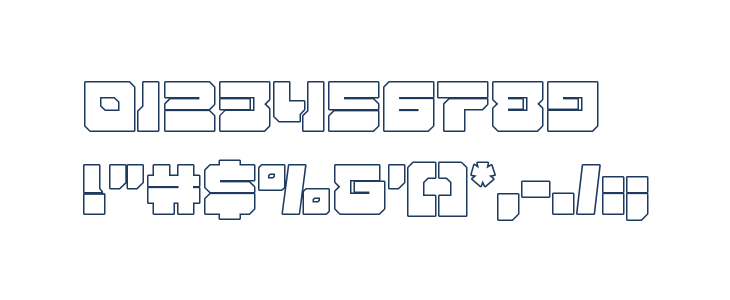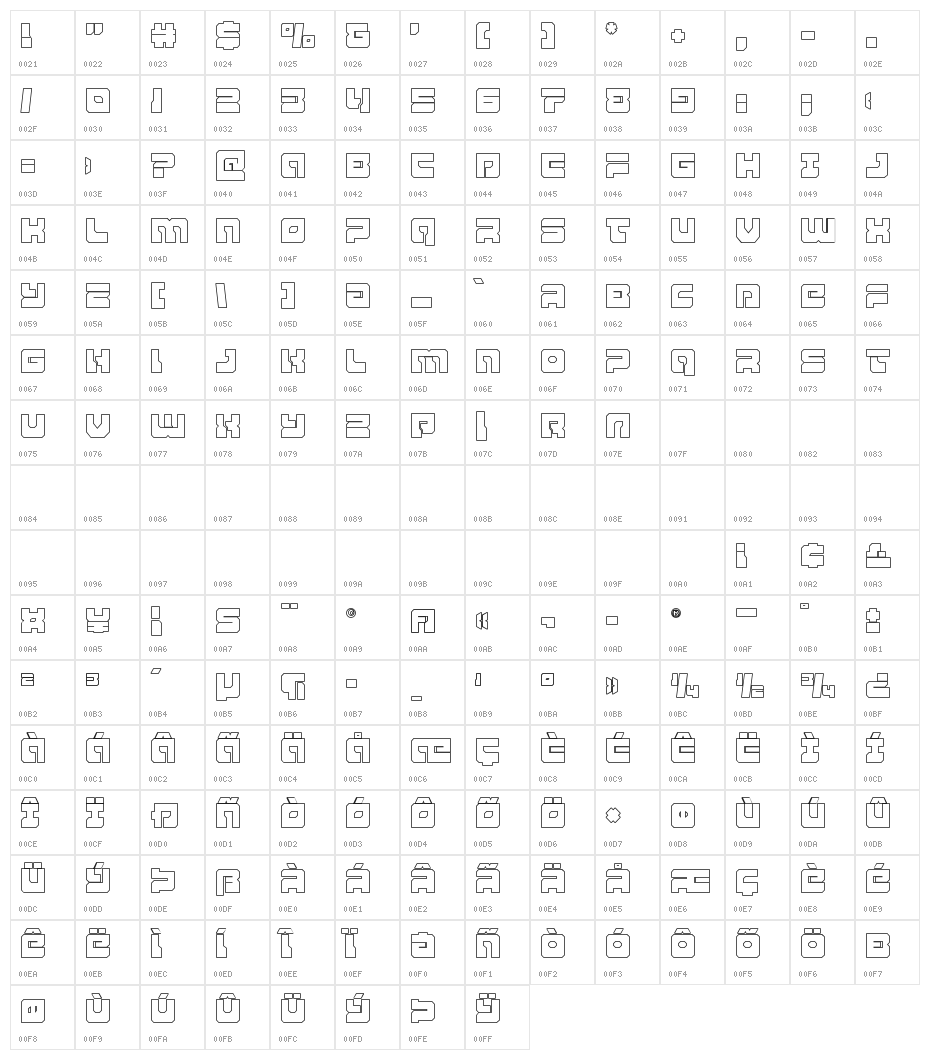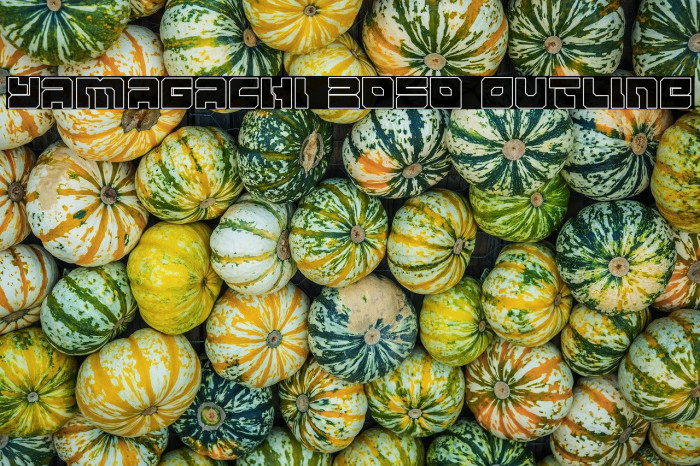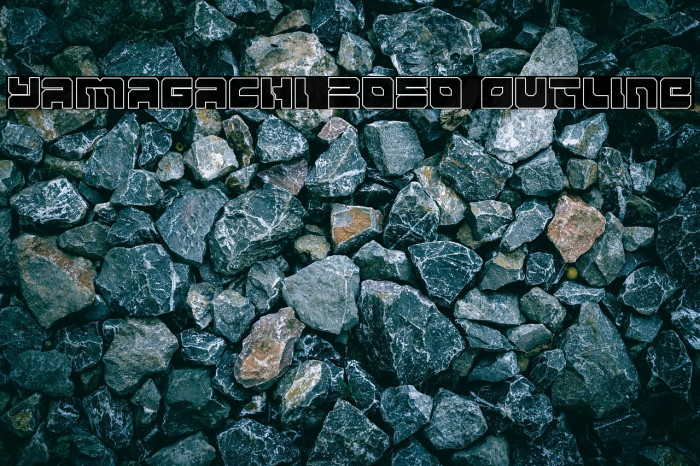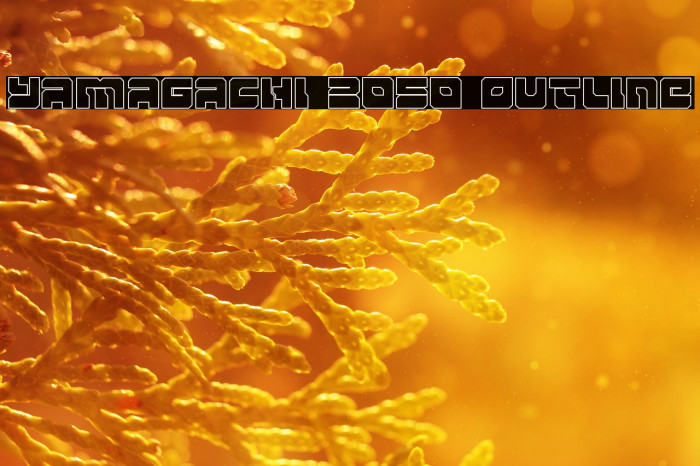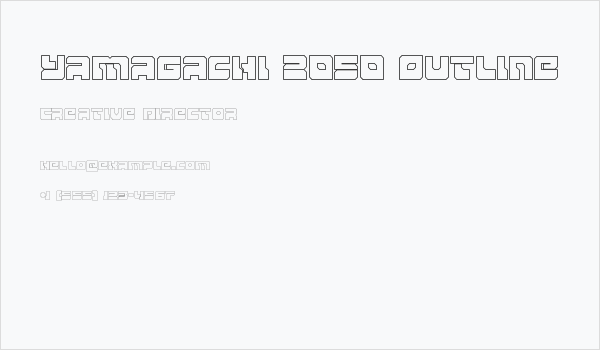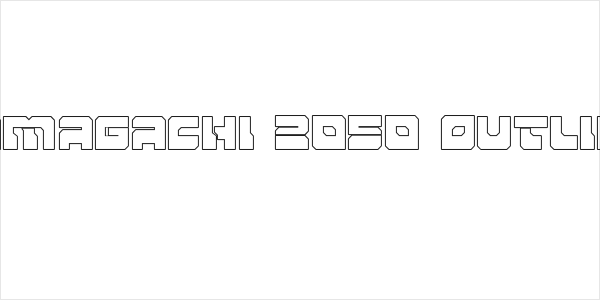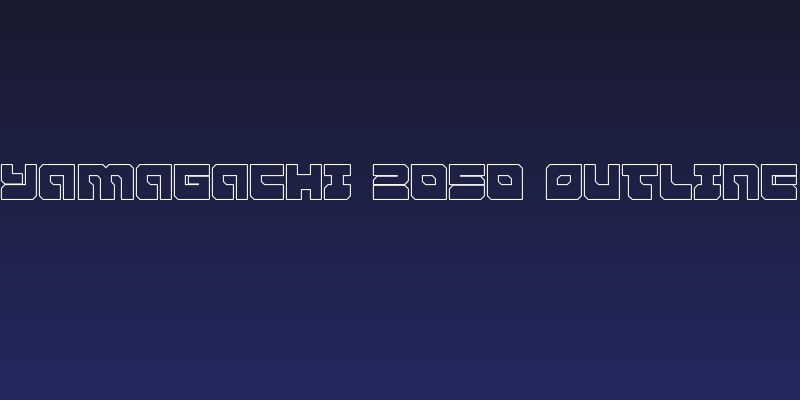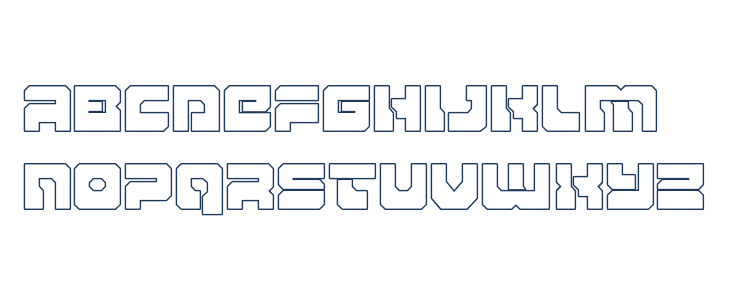
Yamagachi 2050 Outline Font
Yamagachi 2050 Outline Description
This font features a futuristic and geometric outline design, characterized by bold, angular shapes that create a sense of modernity and innovation. The uppercase and lowercase letters share a consistent style, with each character enclosed in a distinct outline that emphasizes its form. The numbers and special characters maintain this cohesive aesthetic, making them easily recognizable and visually striking. The font's design is reminiscent of digital or sci-fi themes, making it suitable for projects that aim to convey a sense of technology or forward-thinking. The overall structure of the font is clean and precise, with a uniform thickness in the outlines that adds to its bold appearance.
| Proposed Projects | Ideal for technology-themed posters, sci-fi book covers, video game titles, and digital media branding. |